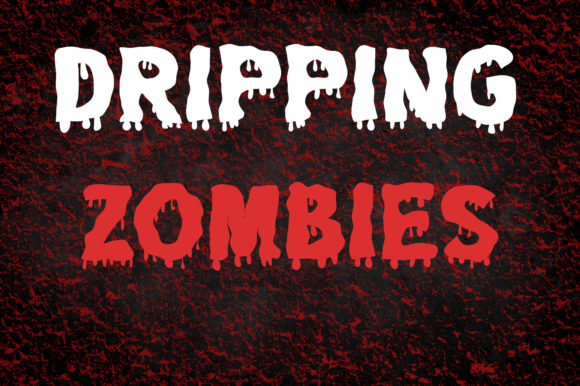
Behold the grotesque and chilling Dripping Zombie Font, the perfect tool for unleashing the spooky spirit of Halloween through your designs. This font exudes an air of eerie fascination, with its dripping blood effect that instantly captivates the attention of onlookers.
Step into the realm of the supernatural and cast a spell of darkness upon your Halloween-themed projects. Let Dripping Zombie's unique style ooze through your designs, invoking a sense of mystery and intrigue.
With its prominent, bold strokes, Dripping Zombie is guaranteed to make your Halloween creations stand out from the ordinary. Its infectious charm and unmistakable character bring an element of the macabre to your artwork, leaving a lasting impression that lingers in the minds of your audience.
Unleash the dark magic of Dripping Zombie upon your Halloween designs and transport your audience to a realm of spine-chilling delight. Witness the transformation as your creations take on a sinister elegance, captivating all who dare to gaze upon them.
This font is not merely a collection of letters and symbols; it's a portal to a world of the supernatural, an invitation to embrace the dark side of creativity. With Dripping Zombie, your Halloween designs will transcend the ordinary and delve into the realm of the extraordinary.
So, heed the call of the Dripping Zombie Font and let its malevolent charm infuse your Halloween creations with a captivating aura of darkness. Dare to embrace the macabre and watch as your designs take on a life of their own, mesmerizing all who encounter them.